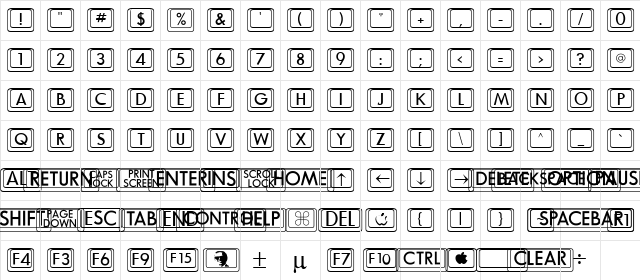
BKCap Regular
Design Context for BKCap Typeface
BKCap offers clean, dependable letterforms without strong stylistic allegiance, making it a practical choice for designers who need flexibility.